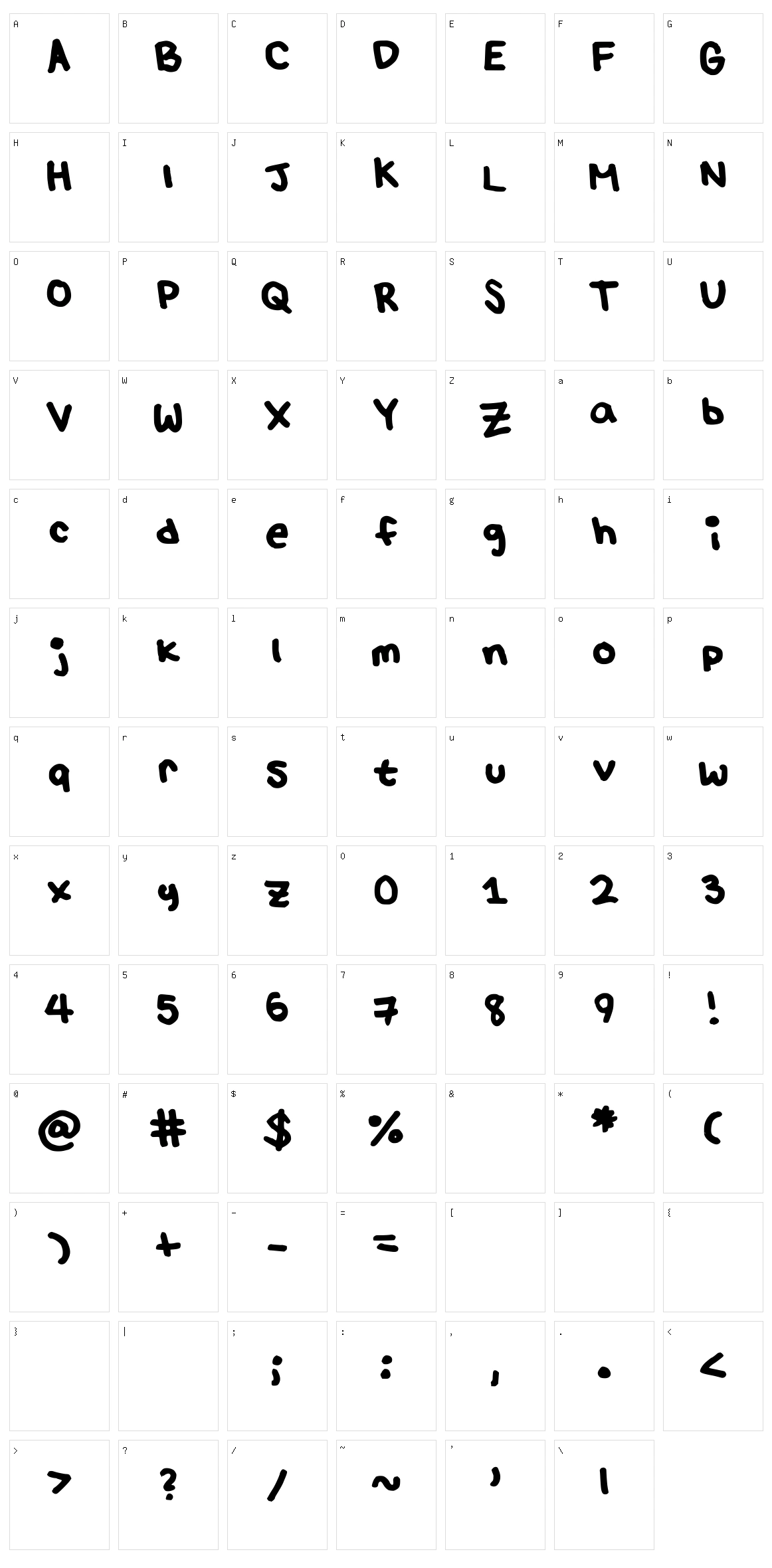
The free font Lulus Font is carefully designed by Lucia :), showcasing a thoughtful balance of creativity and usability and falls under the Script font style. When you download the ZIP file, it contains only 14.92 KB of font files, making it lightweight and quick to download. Please review the license details below to understand permitted usage and distribution rights. If license information is not available, we recommend using this font for personal projects only or contacting the author directly for commercial usage permissions.